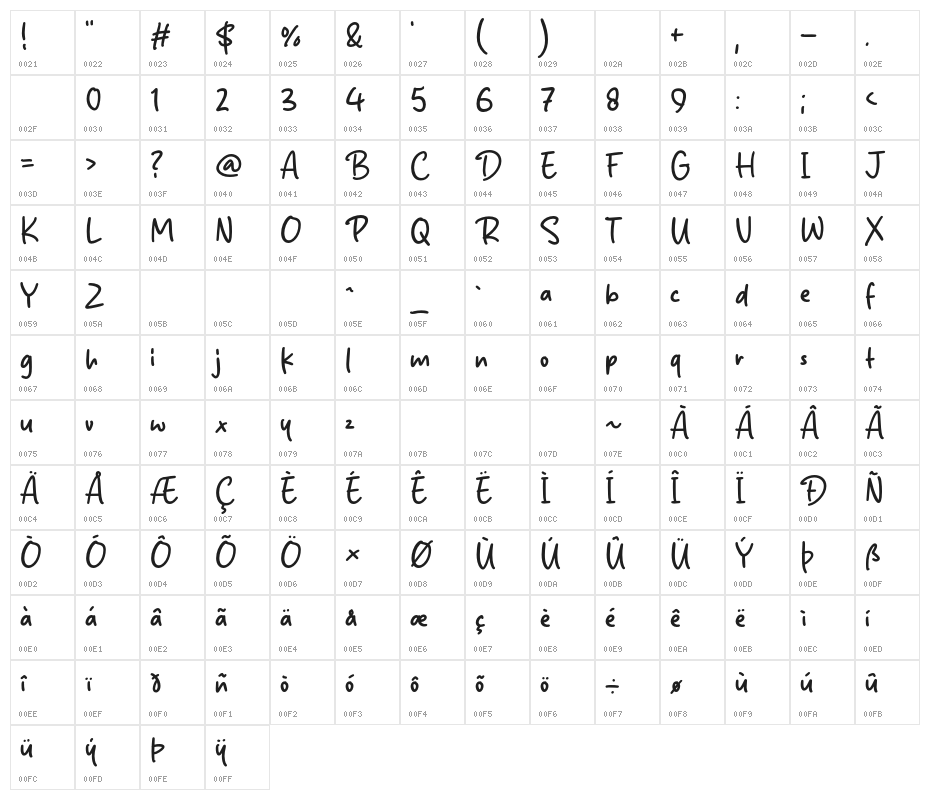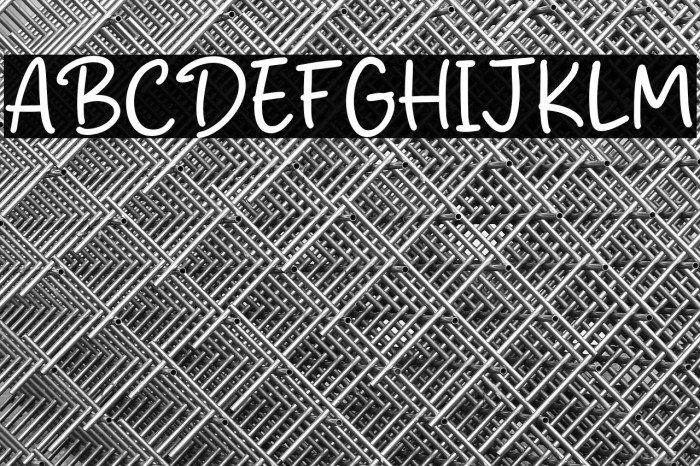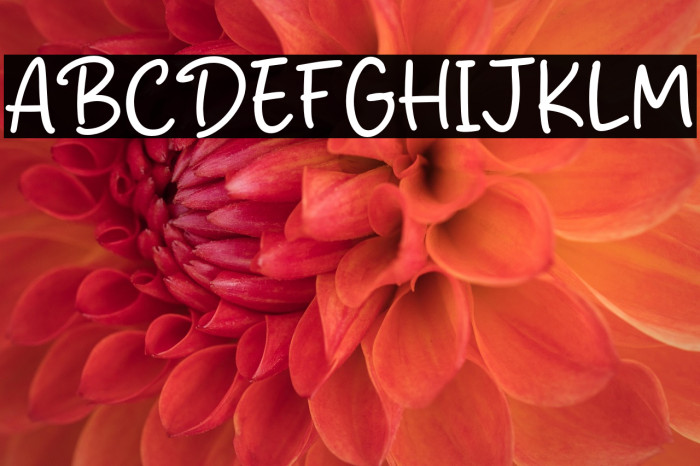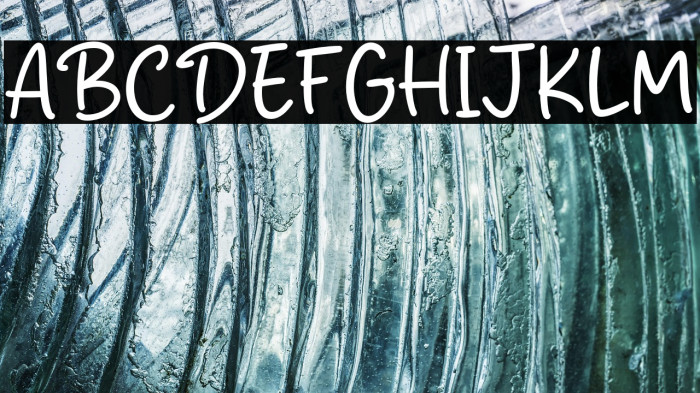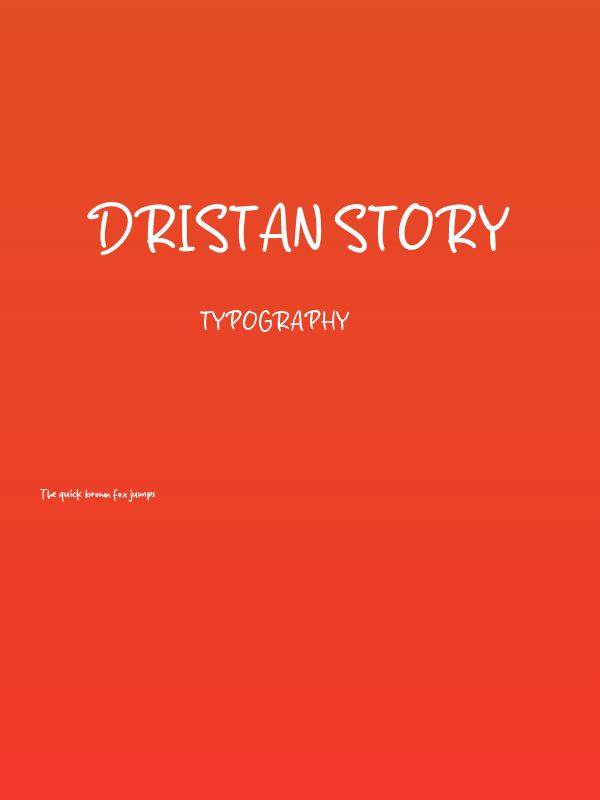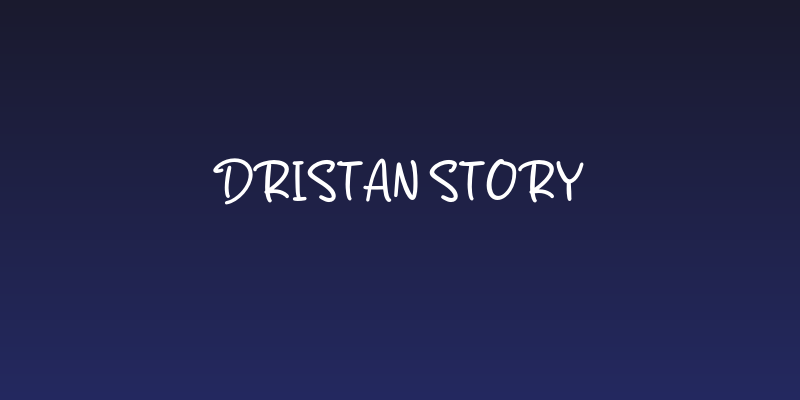
Dristan Story Font
Dristan Story Description
A playful and casual handwritten font with smooth curves and a friendly appearance.
| Use Case | Headlines, Informal text, Personal projects |
| Proposed Projects | Greeting cards, invitations, personal branding. |